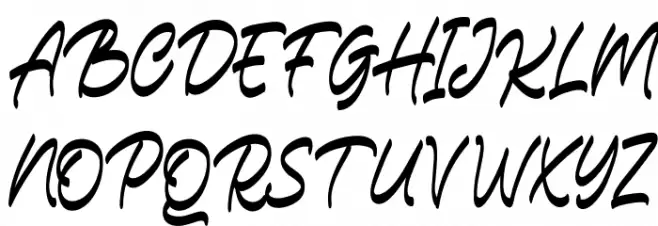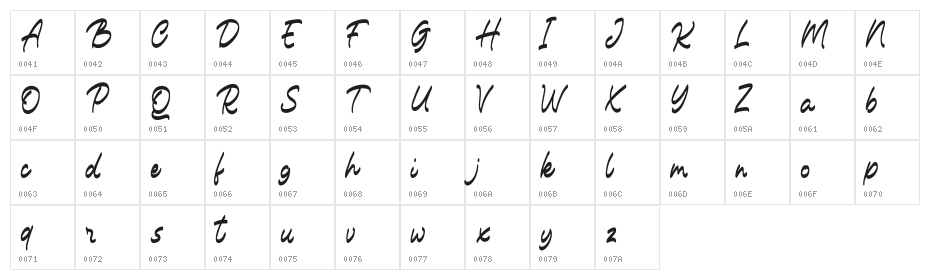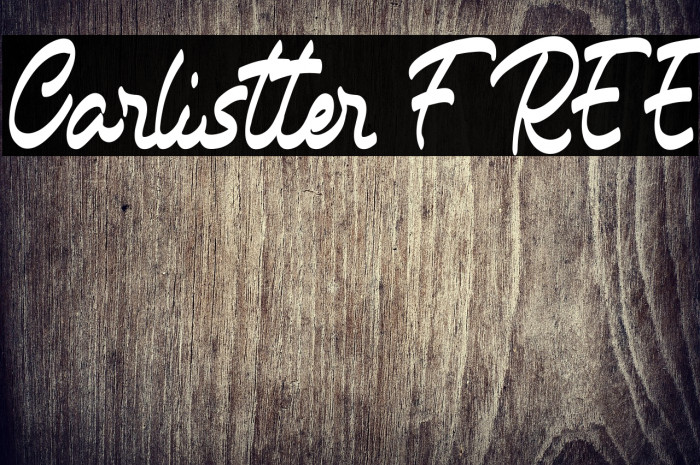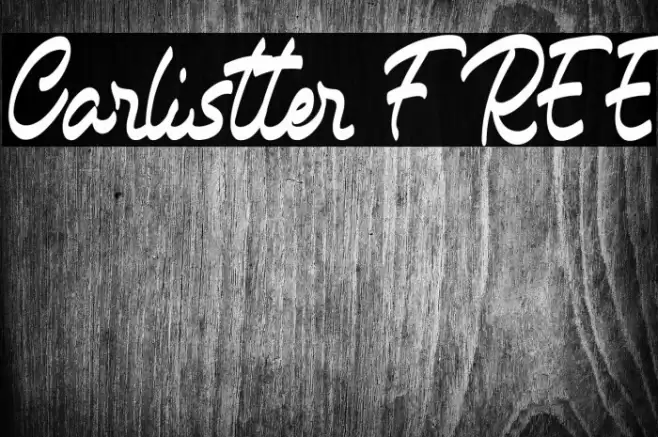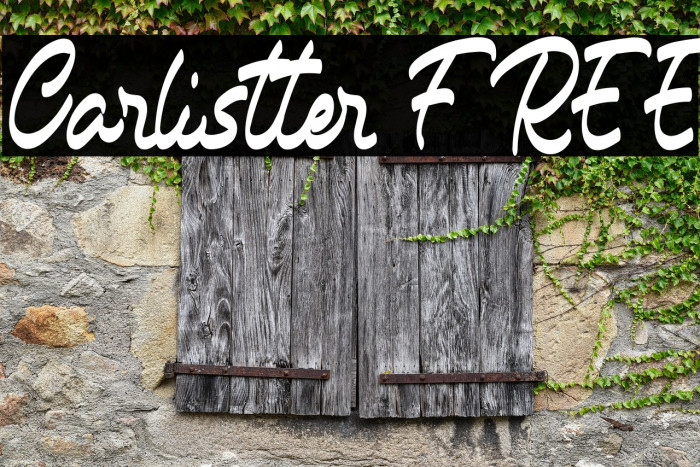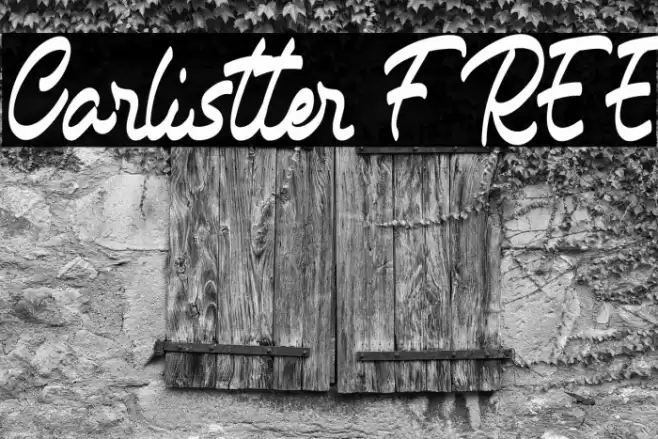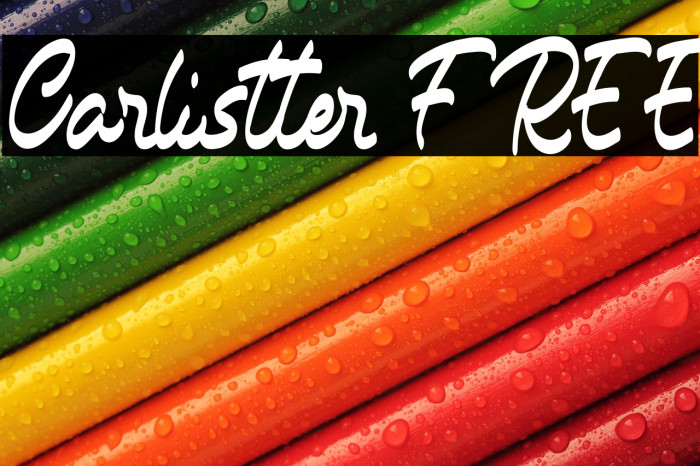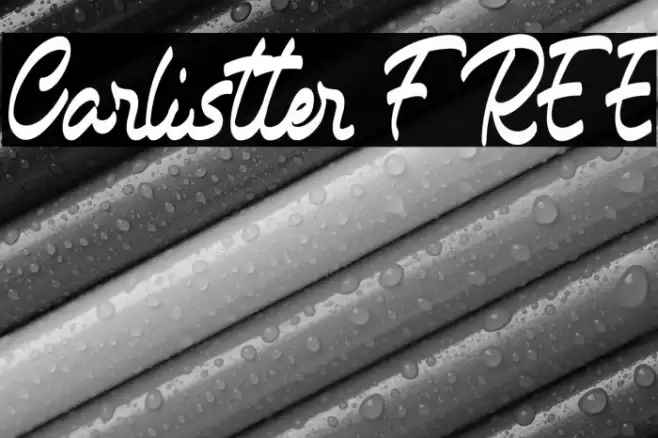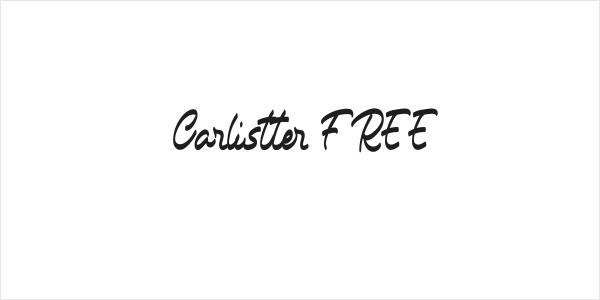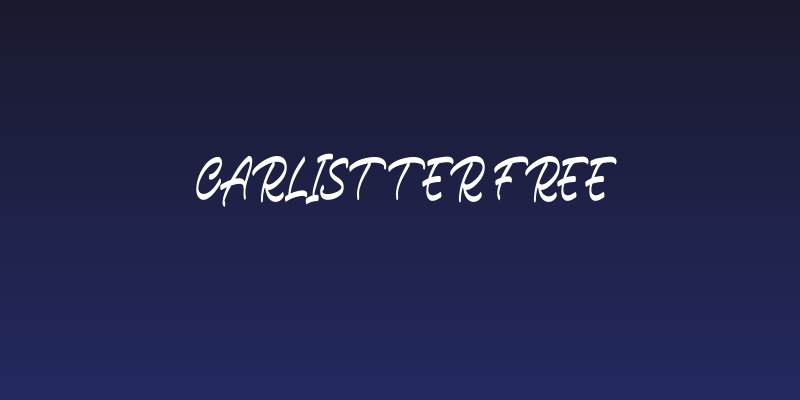
Carlistter FREE Font
Carlistter FREE Description
This font features a dynamic and flowing script style, characterized by its smooth, cursive letterforms that mimic natural handwriting. The uppercase and lowercase letters are designed with a consistent slant, giving the text a sense of motion and elegance. The strokes are moderately thick, providing a bold appearance while maintaining legibility. The font includes a full set of uppercase and lowercase letters, numbers, and a selection of special characters, making it versatile for various design needs. The overall aesthetic is casual yet sophisticated, suitable for projects that require a personal touch.